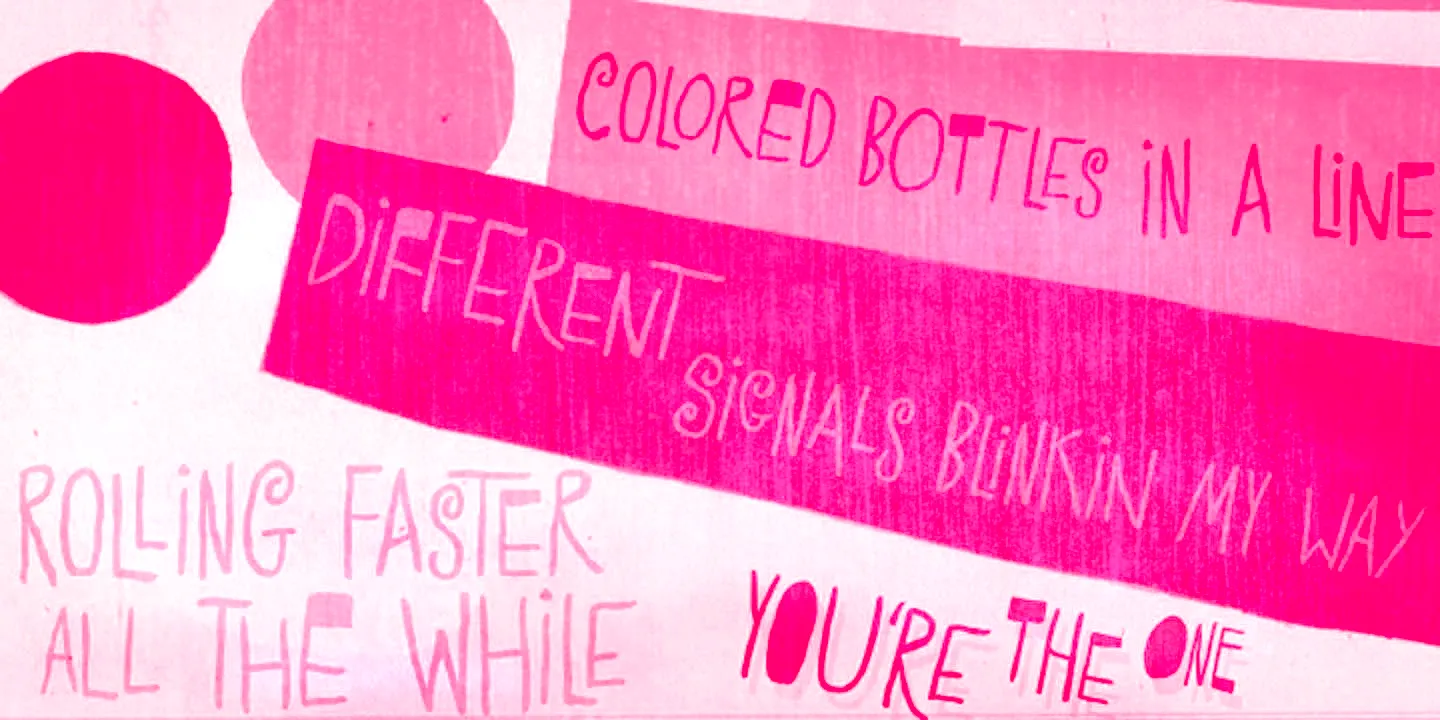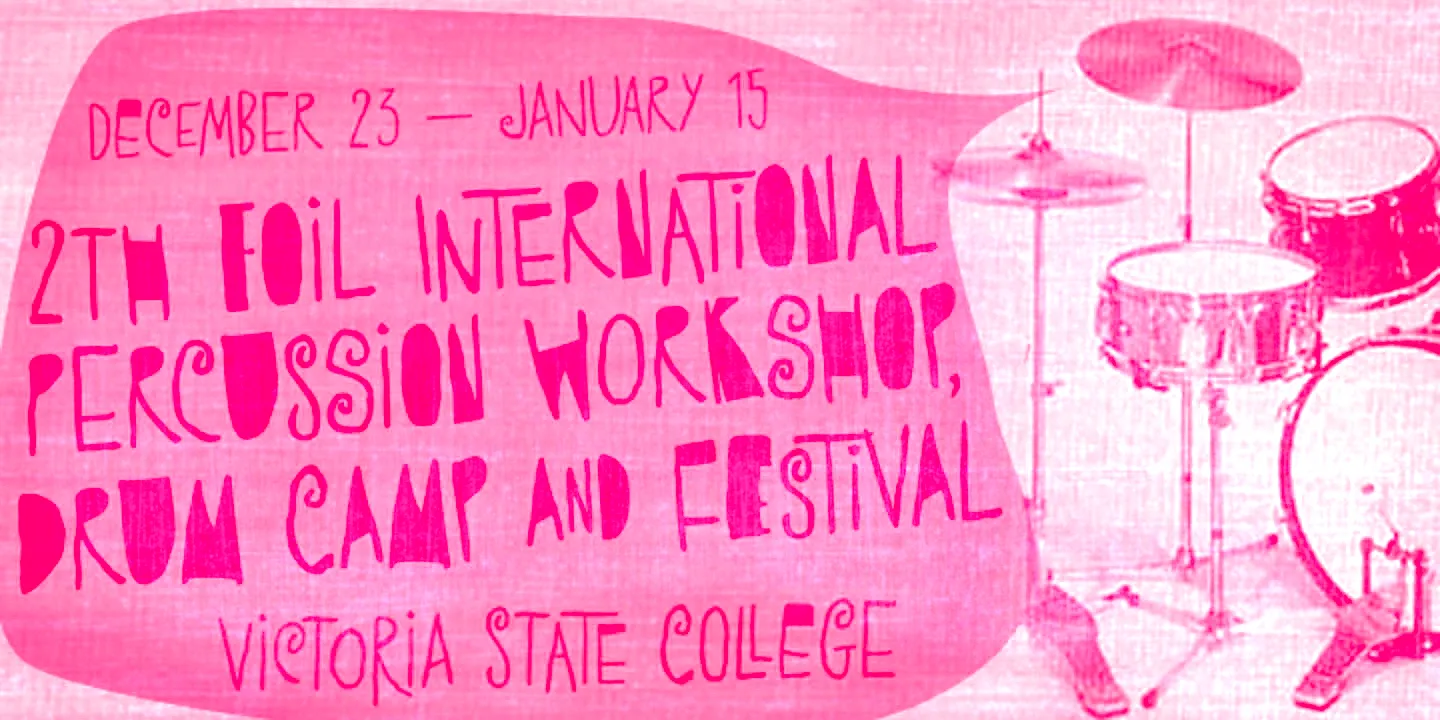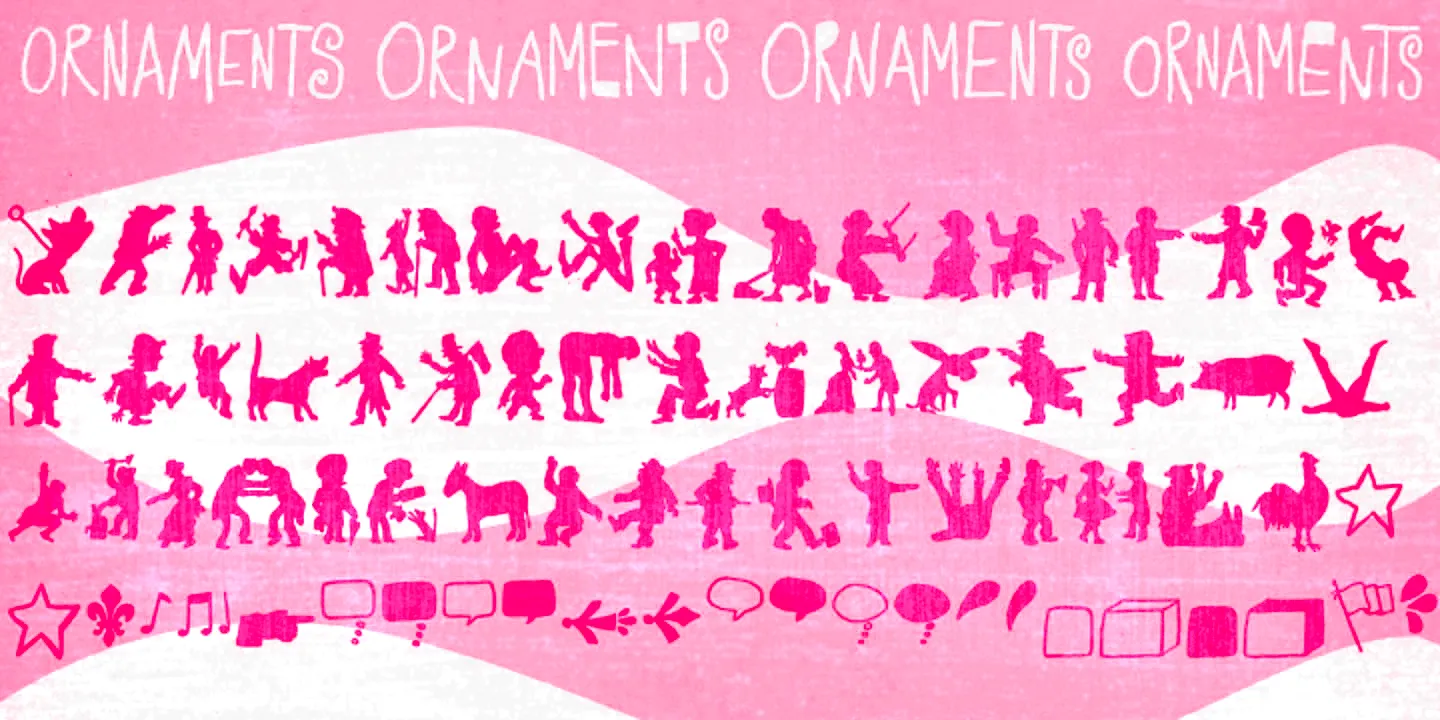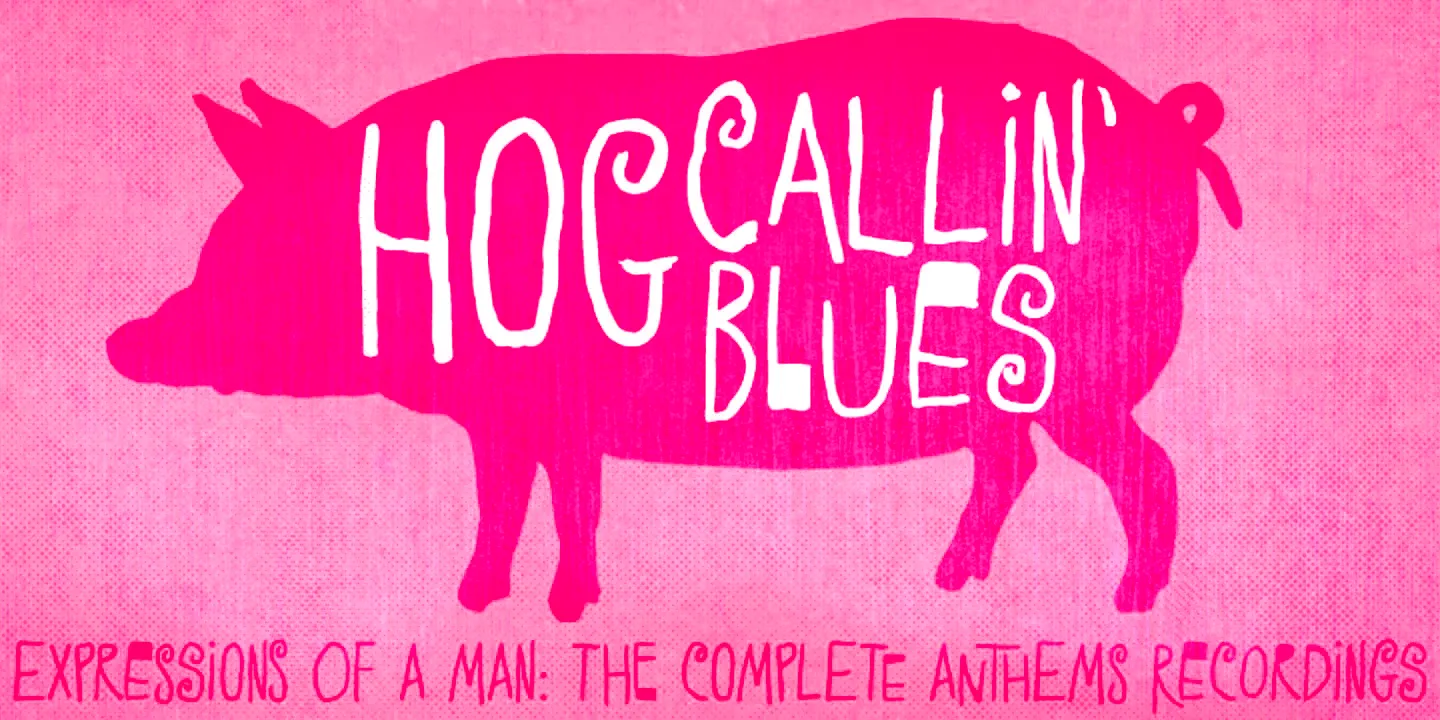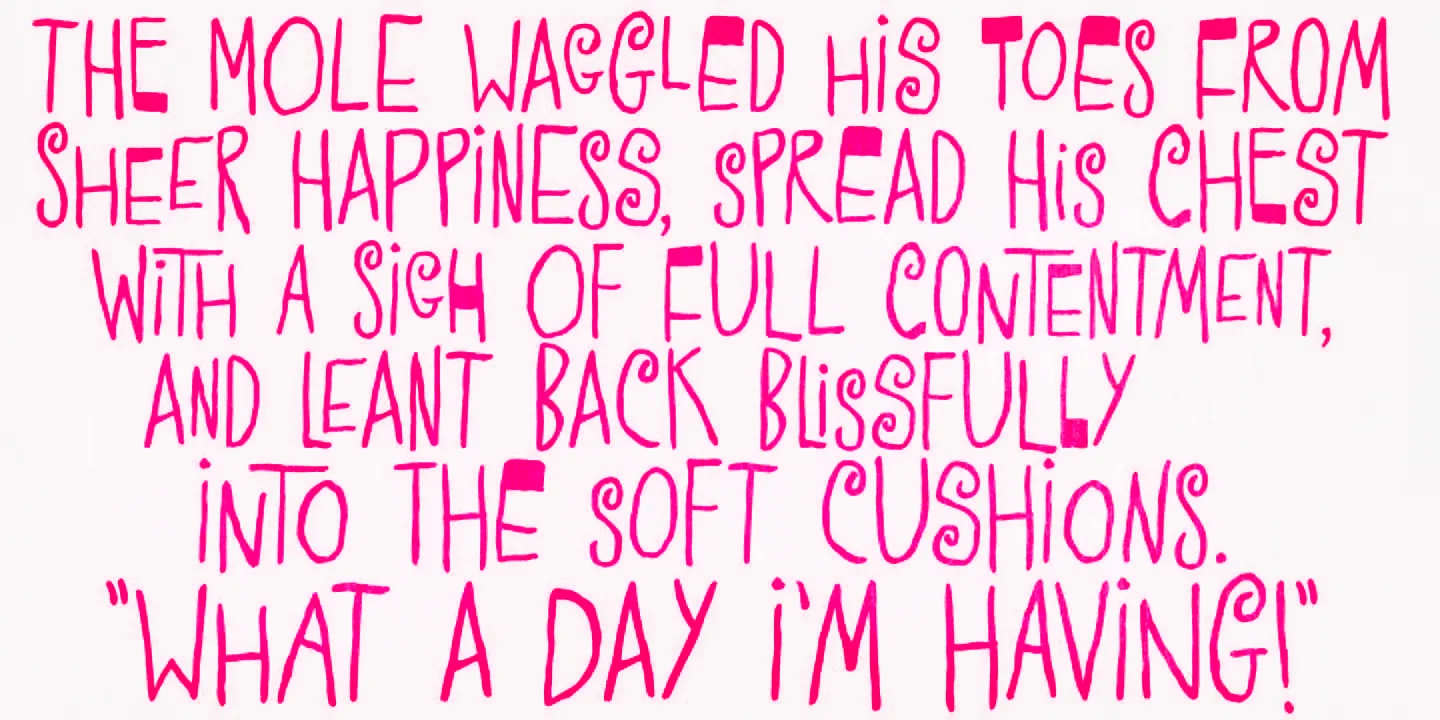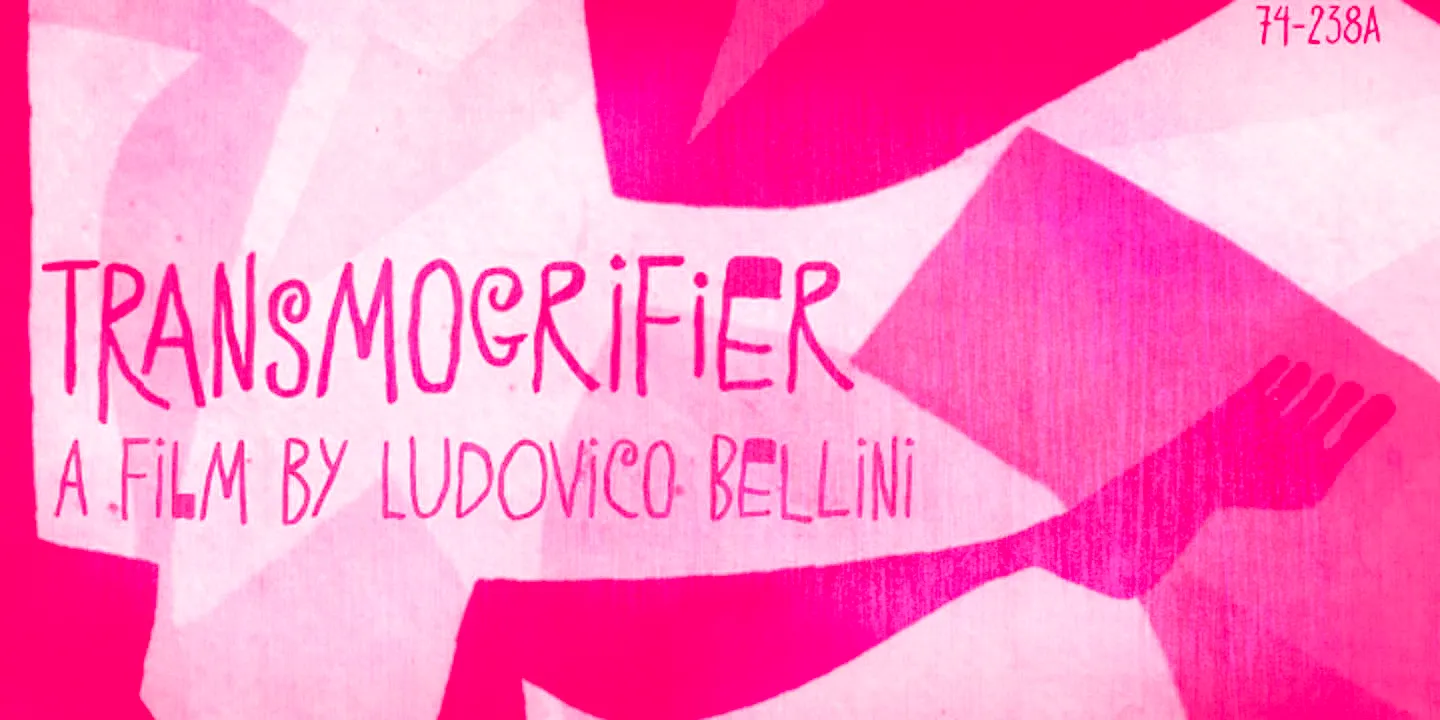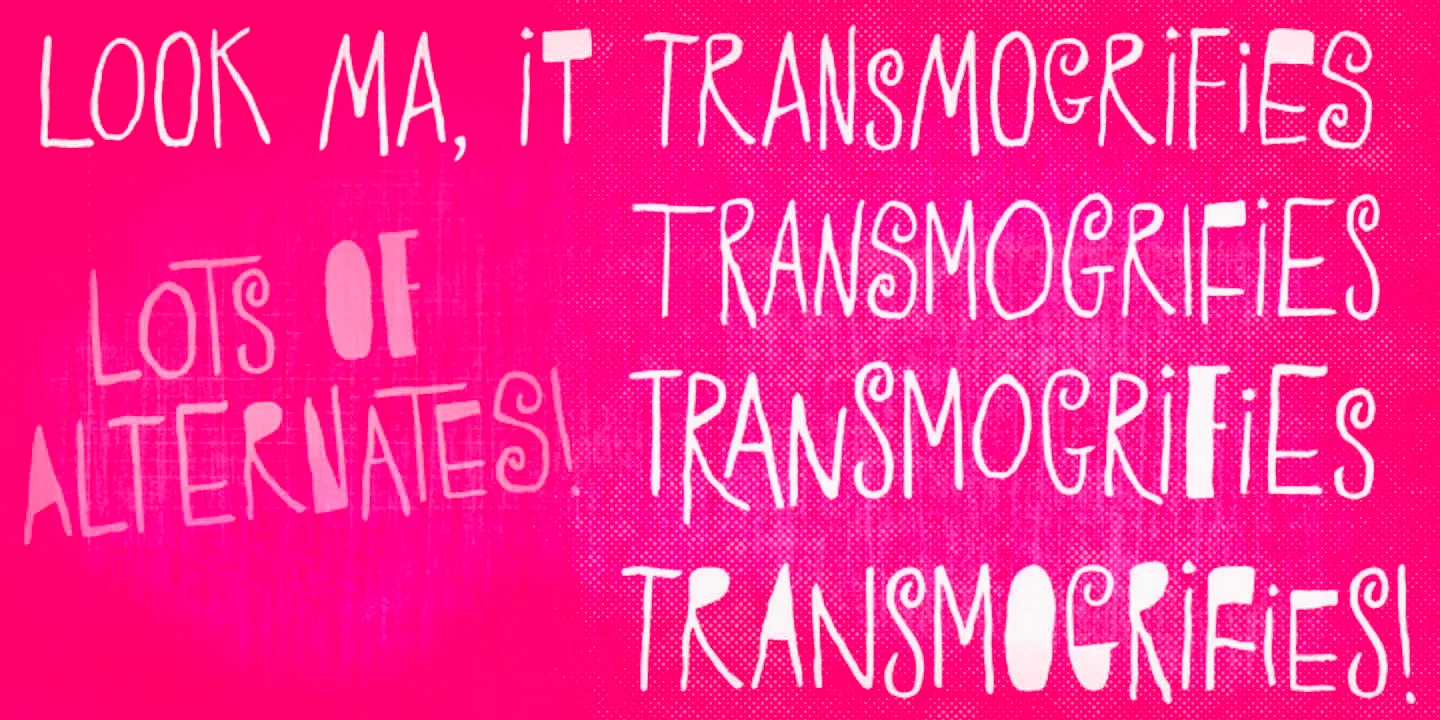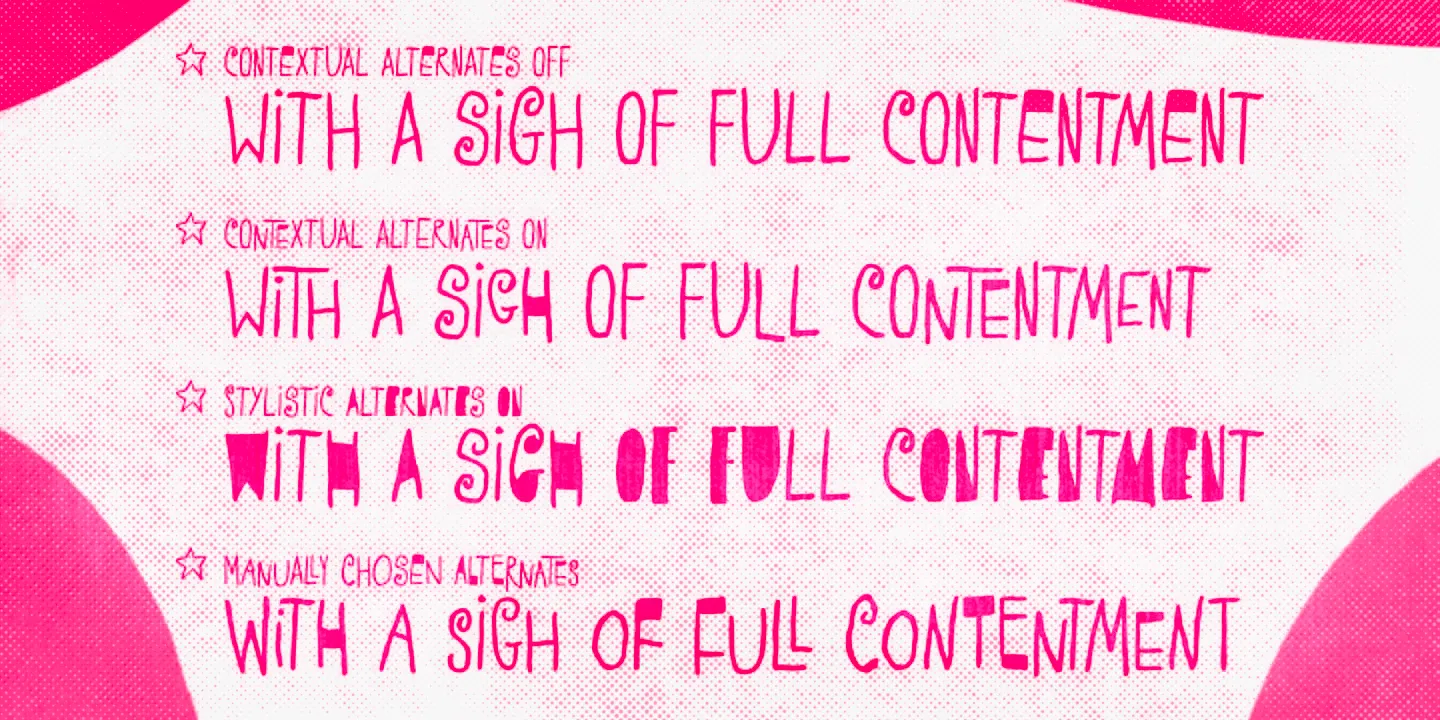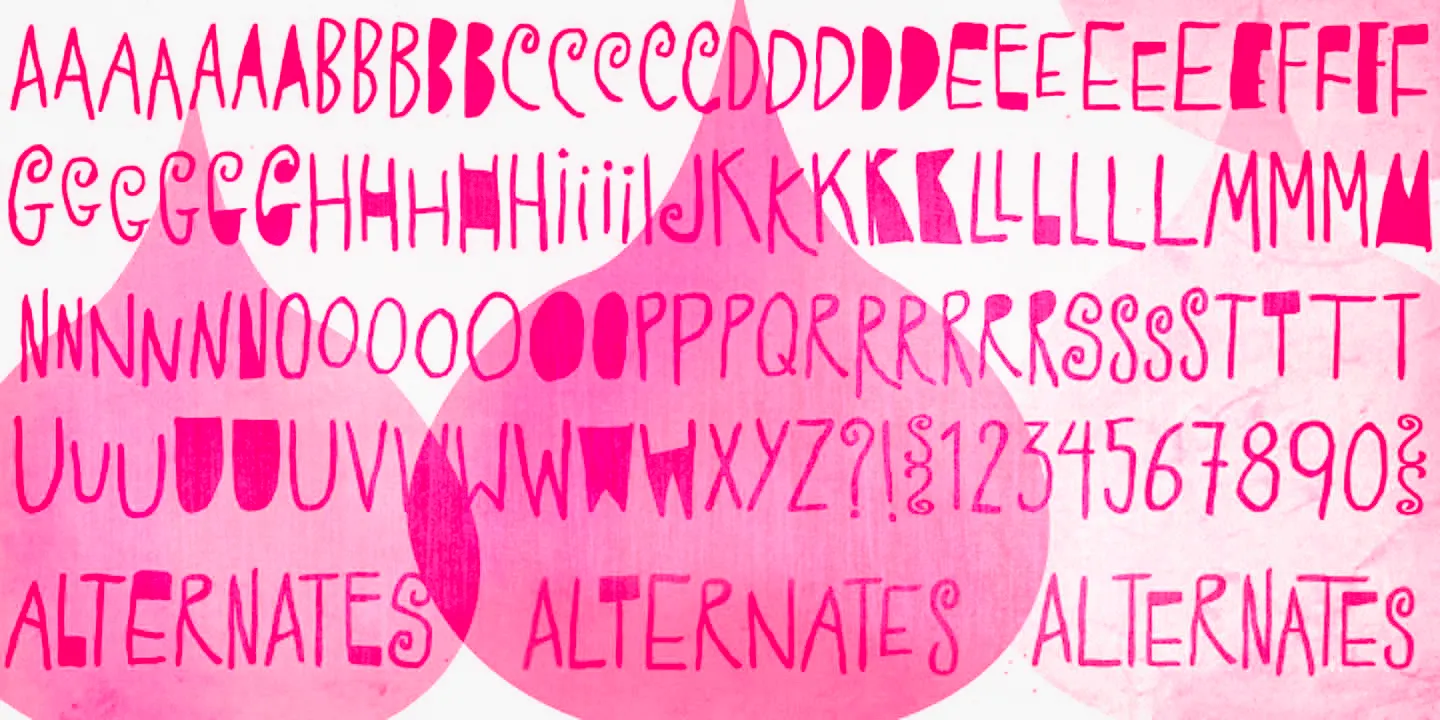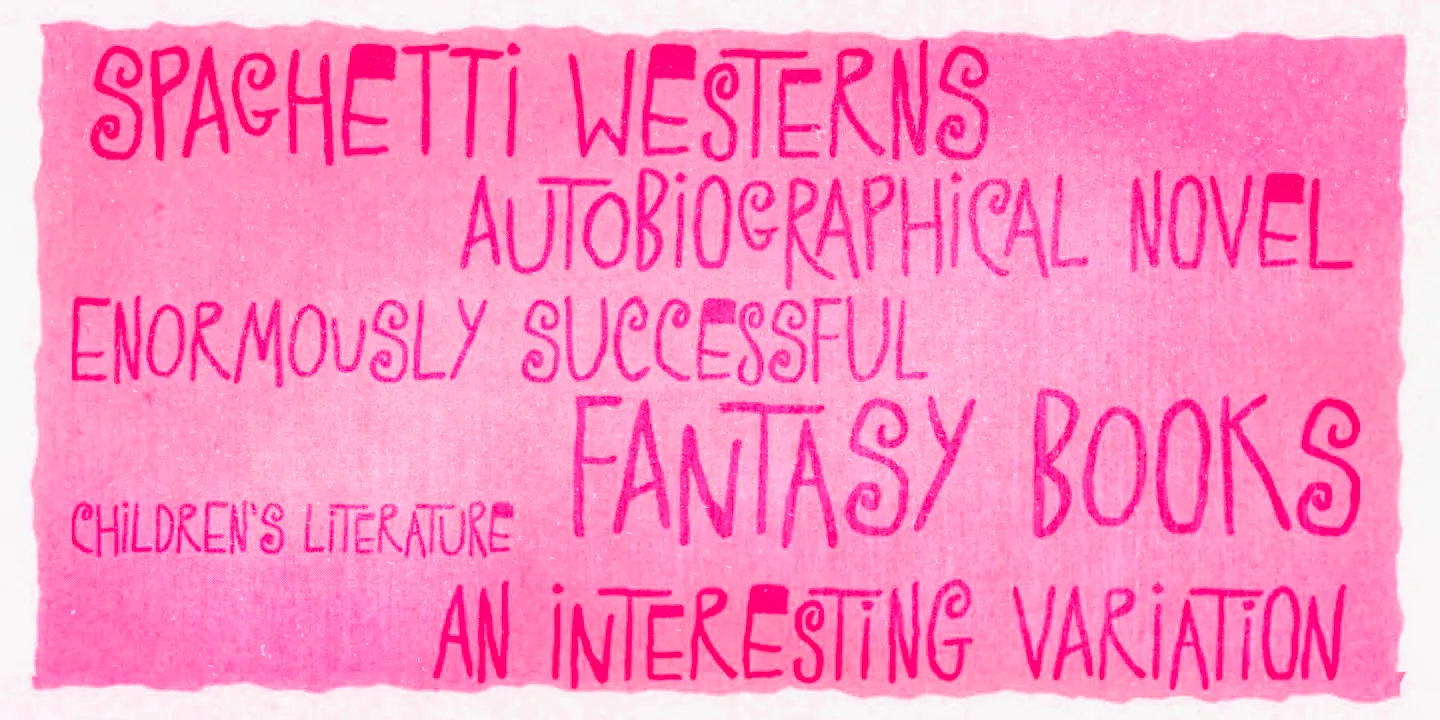
Transmogrifier Font
Transmogrifier
Transmogrifier is a single-style hand-lettered typeface inspired by Cuban posters by the talented and prolific graphic artist Eduardo Muñoz Bachs. It is filled with urgency and dynamism because it was hand-painted with a thin brush, using loose, fast strokes. The font is packed with plenty of alternates that will help create the illusion of original hand-lettered designs. The font also has a set of rough pictures based on charcoal sketches from the Shniedewend & Lee Company in 1888. These were handpainted with the same thin brush as the letters, making them a natural complement.